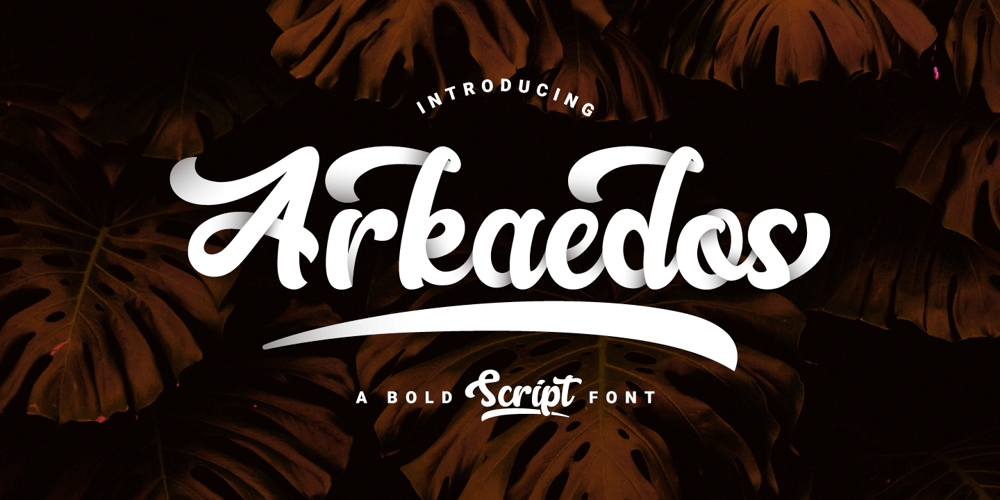
Arkaedos Font Family was designed by Prio Nurokhim Aji and published by Prioritype. Arkaedos contains 1 styles and family package options. Here is a script font with a bold and cool style. Can be applied in various media such as vintage logos / logos, clothing, food packaging, brand names, posters, broadcasts or youtube thumbnails, even album covers!No, you can also execute and explore easily for your project because it contains lots of very cool alternative characters! see details of some preview above for reference.Features:-Uppercase-Lowercase-Numeral-Punctuation-Multilingual-Alternate-SwashNote : Open with a program that supports the Opentype feature and an glyphs panel is available to see more alternative characters. Sample programs like Adobe Illustrator and the like!